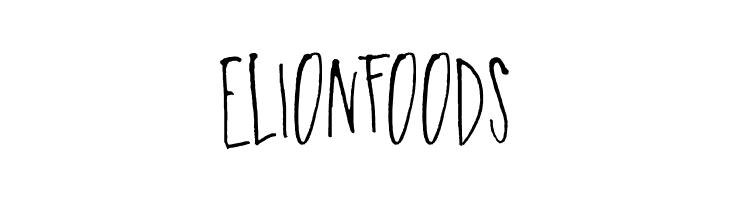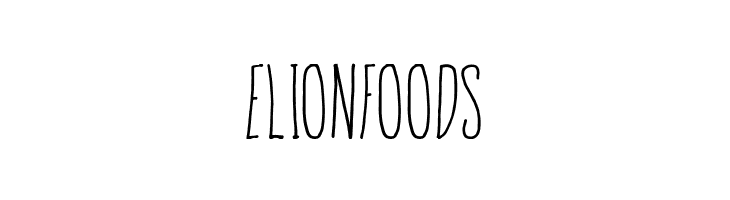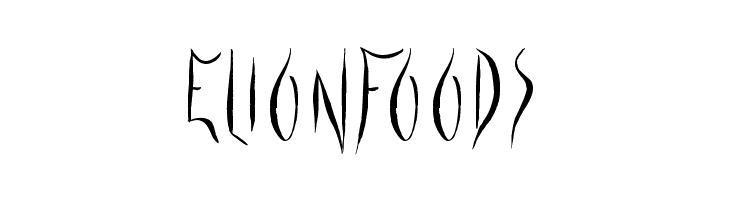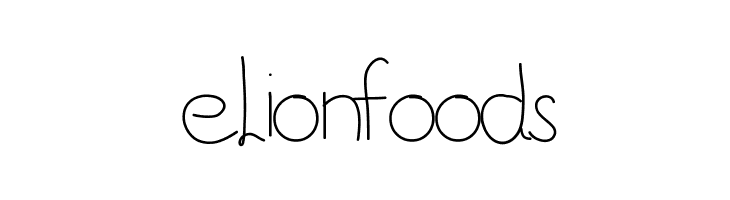
( Fonts by Hanoded )
A whimsical, hand-drawn font with elongated, irregular strokes and playful elements.
( Fonts by Bonez Designz )
A playful, handwritten font with elongated, thin strokes and a whimsical style.
( Fonts by Sheila Burns )
A playful, paw-embellished font with thin, elongated characters.
A bold, modern font with elongated, narrow characters and a geometric structure.
An elegant, artistic script font with flowing, elongated lines and a calligraphic style.
A dramatic, gothic-inspired font with elongated, sharp strokes.
A whimsical, artistic font with elongated, playful letterforms and unique spiral elements.
A bold, elongated font with a distressed, hand-drawn style.